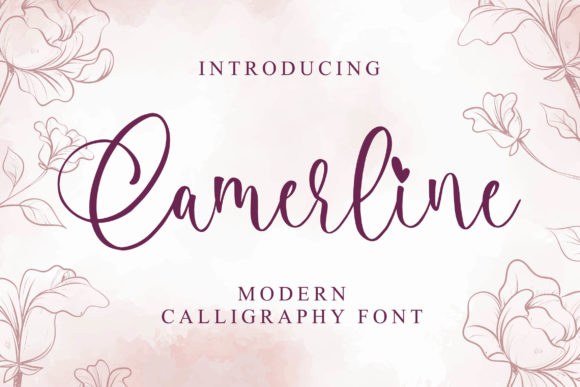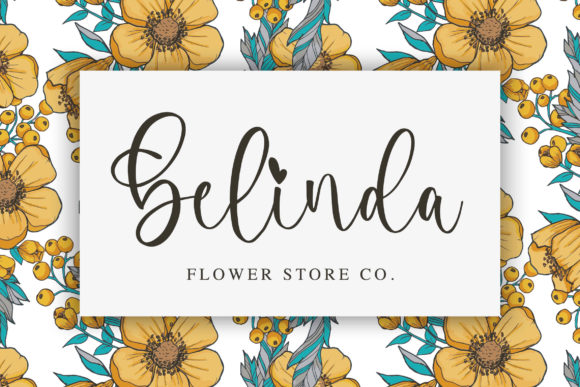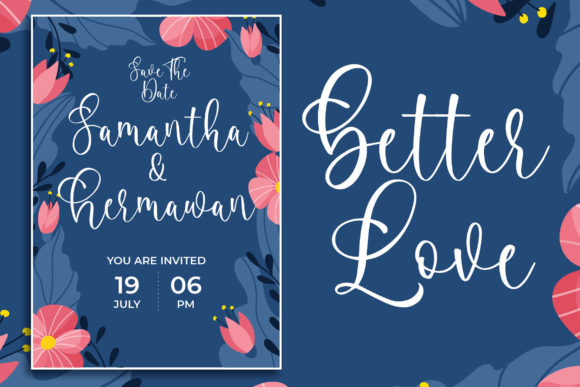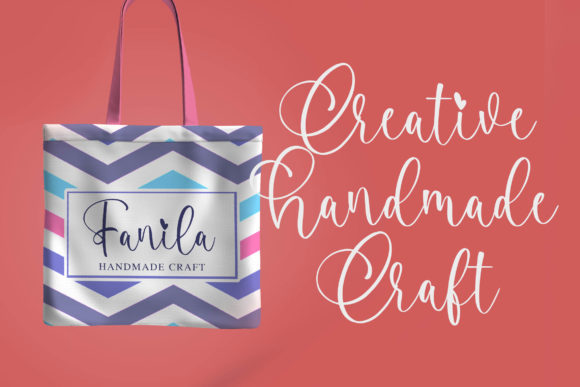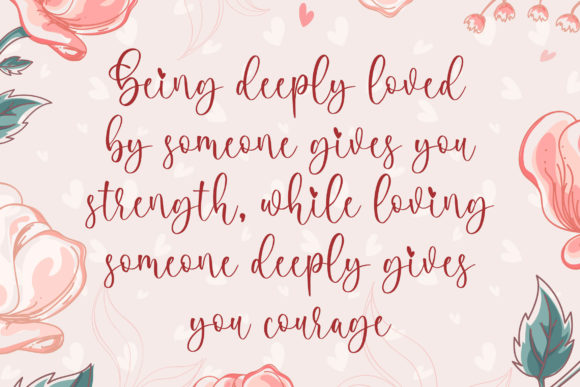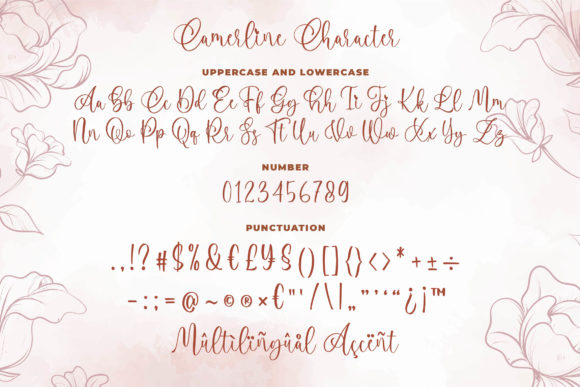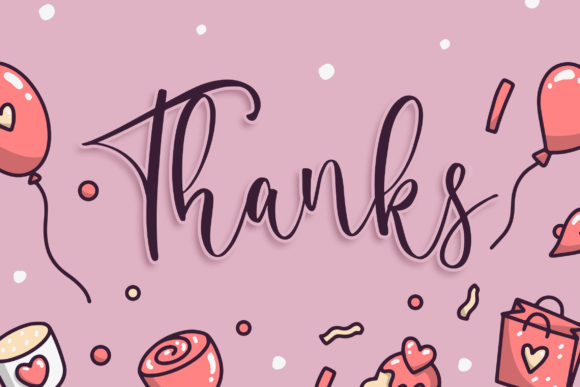
Camerline Font
About Camerline Font
Camerline is inspired by classic typography and brings its own unique style to any design project. This fantastic script font is best suited for headlines of all sizes, as well as for blocks of text that have both maximum and minimum variations. Whether it’s for web, print, moving images or anything else – Camerline will look spectacular.